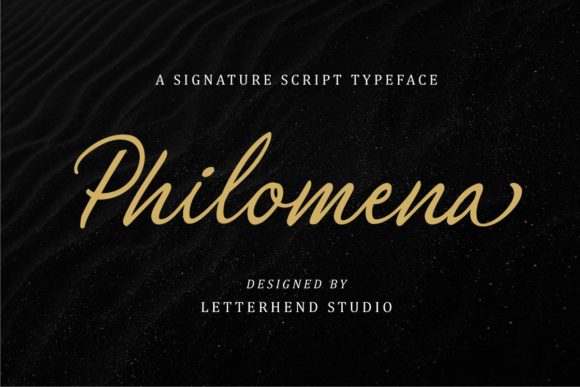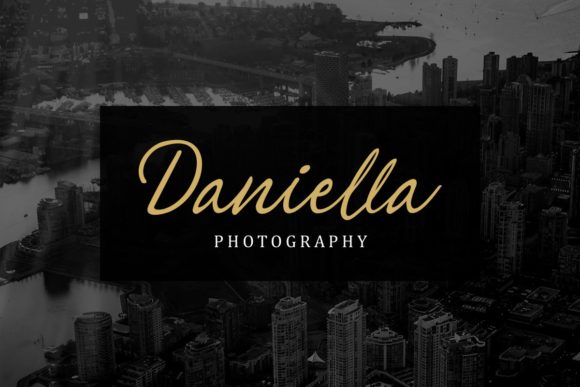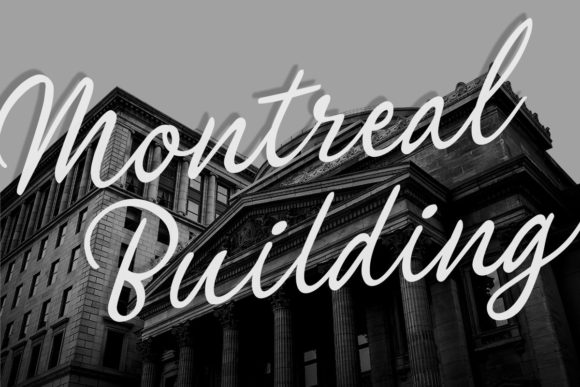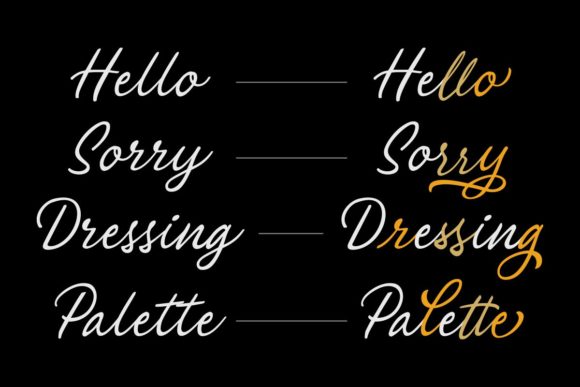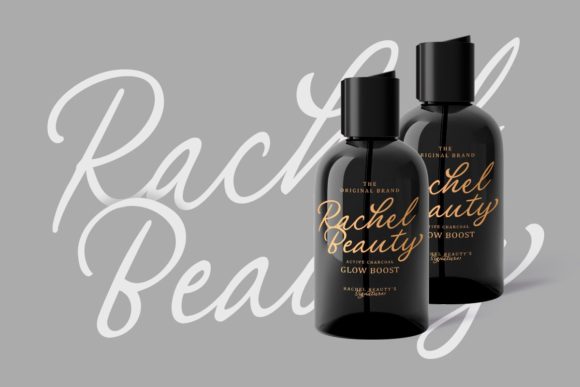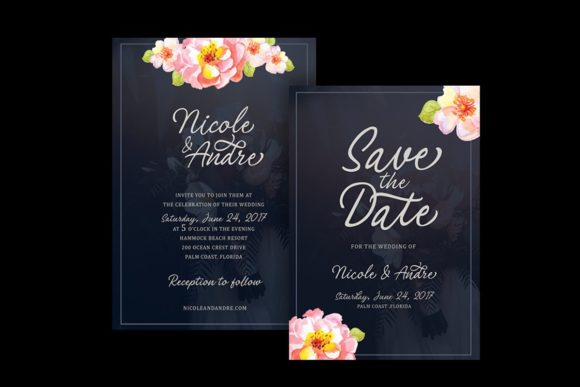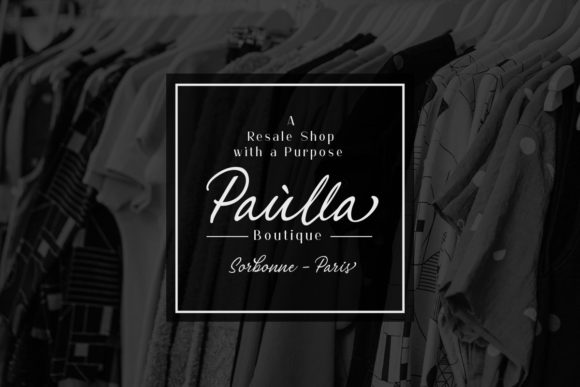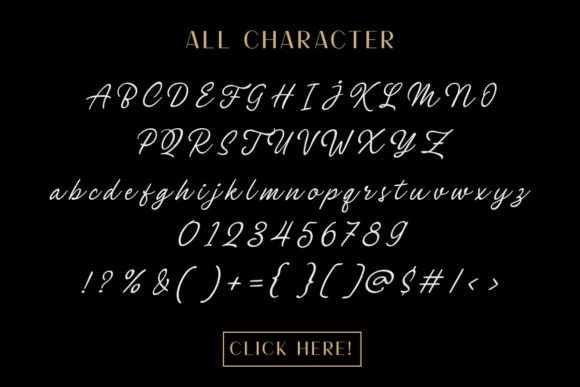
HomeScript FontsPhilomena Font Script Fonts Philomena Font FacebookXPinterestWhatsApp Philomena Font Poster 2 Philomena Font Poster 3 Philomena Font Poster 4 Philomena Font Poster 5 Philomena Font Poster 6 Philomena Font Poster 7 Philomena Font Poster 8 Philomena Font Poster 9 About Philomena Font Philomena is a unique and modern font family with unique style. Fall in love with its playful look & feel! DOWNLOAD NOW People also explored Nayaga Font Hello Vintage Font Everly Median Font Strawberry Font Alpha Anggela Font Spring Flower Font Spicy Chicken Font Keilla Font 311 0 TagsPhilomena Font Previous articleRadicals FontNext articleOlive Font LEAVE A REPLY Cancel reply Comment: Please enter your comment! Name:* Please enter your name here Email:* You have entered an incorrect email address! Please enter your email address here Website: Save my name, email, and website in this browser for the next time I comment. Personal Use Free Jilliant Personal Use Free Read more about this font Aseline Personal Use Free Read more about this font Bebas Neue Font Personal Use Free Read more about this font Engine Personal Use Free Read more about this font BLOG The 10 Best Handwriting Fonts to Add Personality to Your Designs 10 of the Best Handwriting Fonts for Adding Personality to Your Designs There will undoubtedly be no other better choice than handwriting fonts to give... Elegant Wedding Invitation Fonts – Handwritten & Script Fonts Using Fonts in Digital Marketing: Tips to Strengthen Your Brand Identity 5 Fonts That Will Dominate Design Trends in 2026